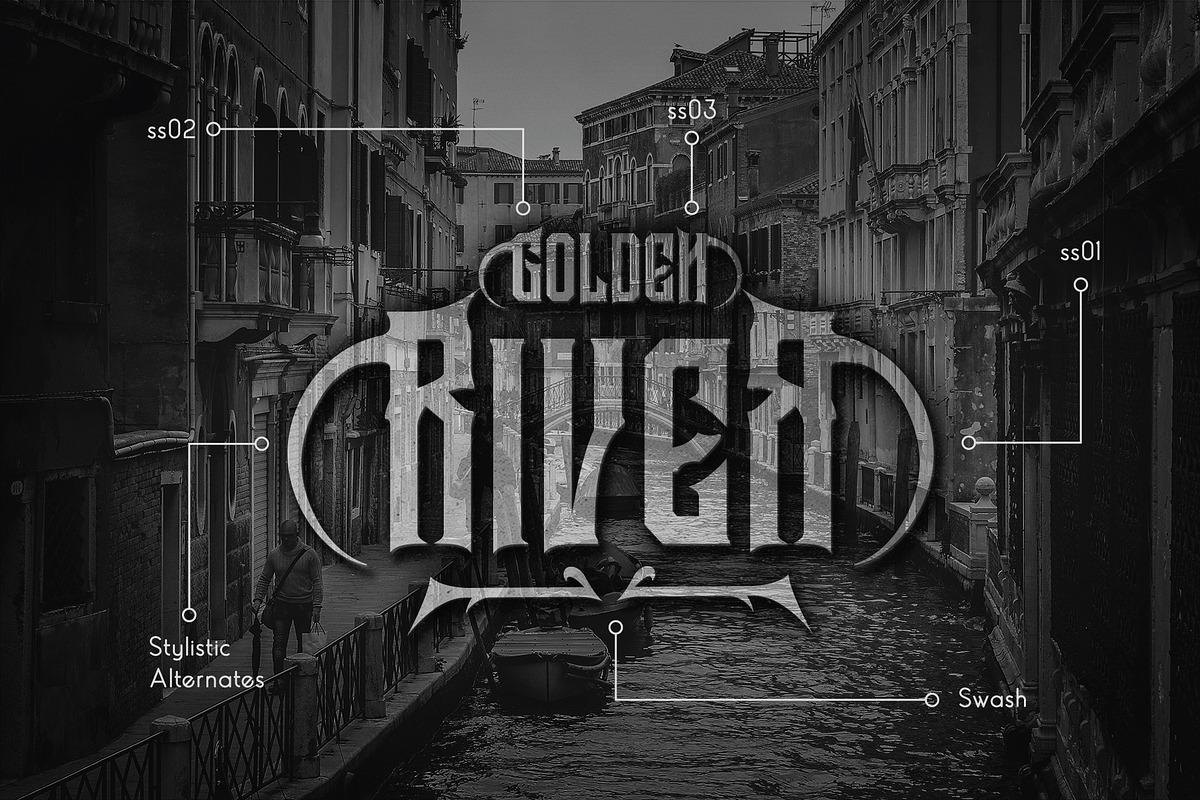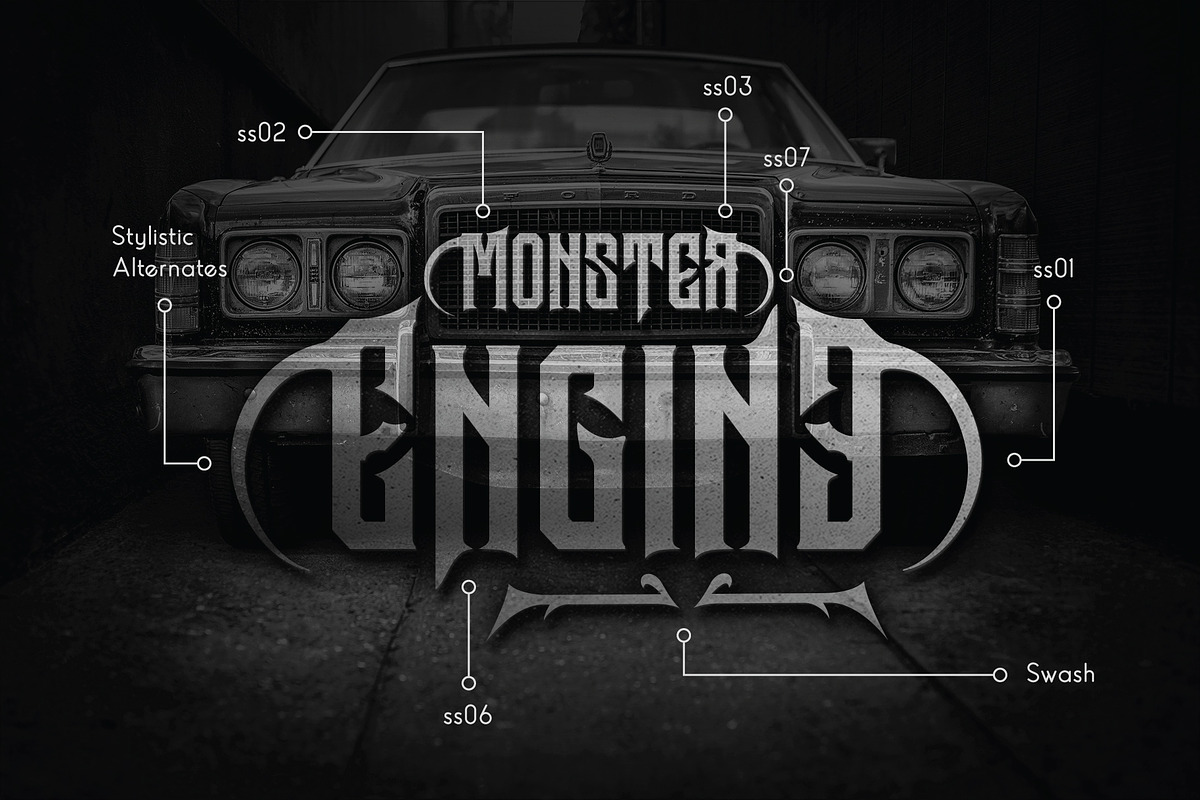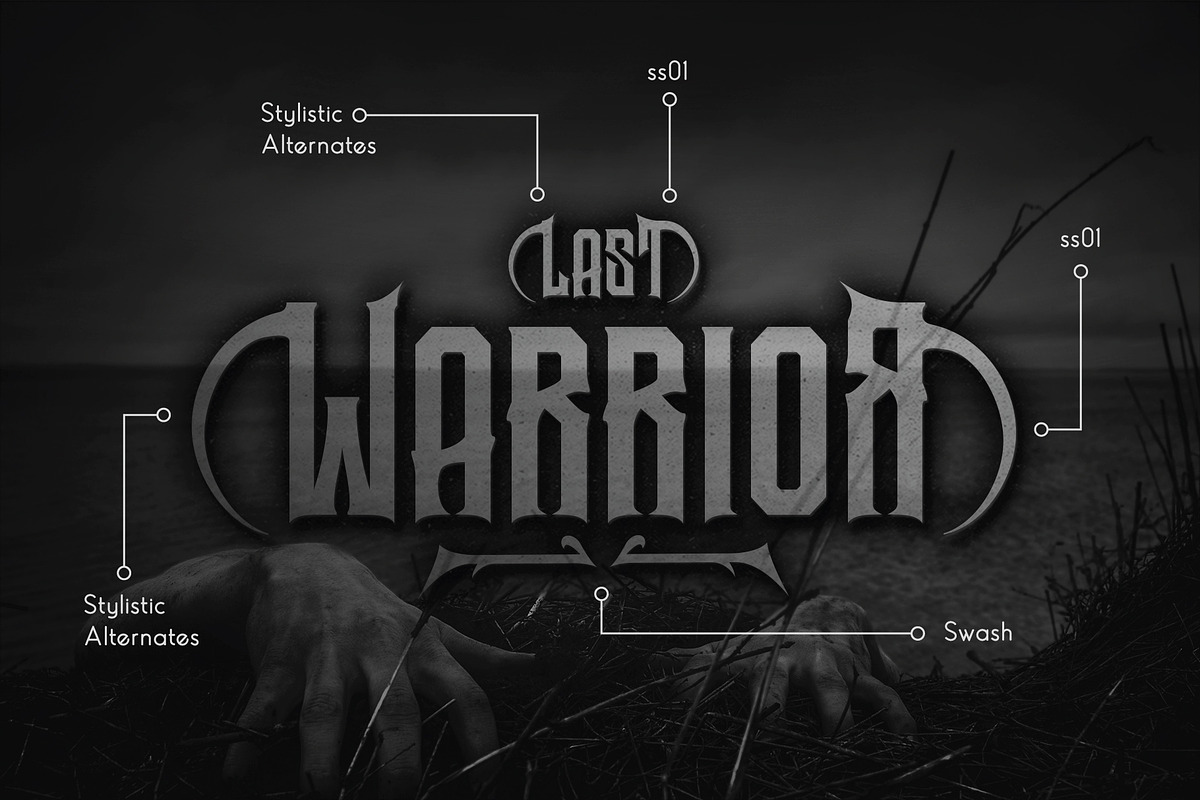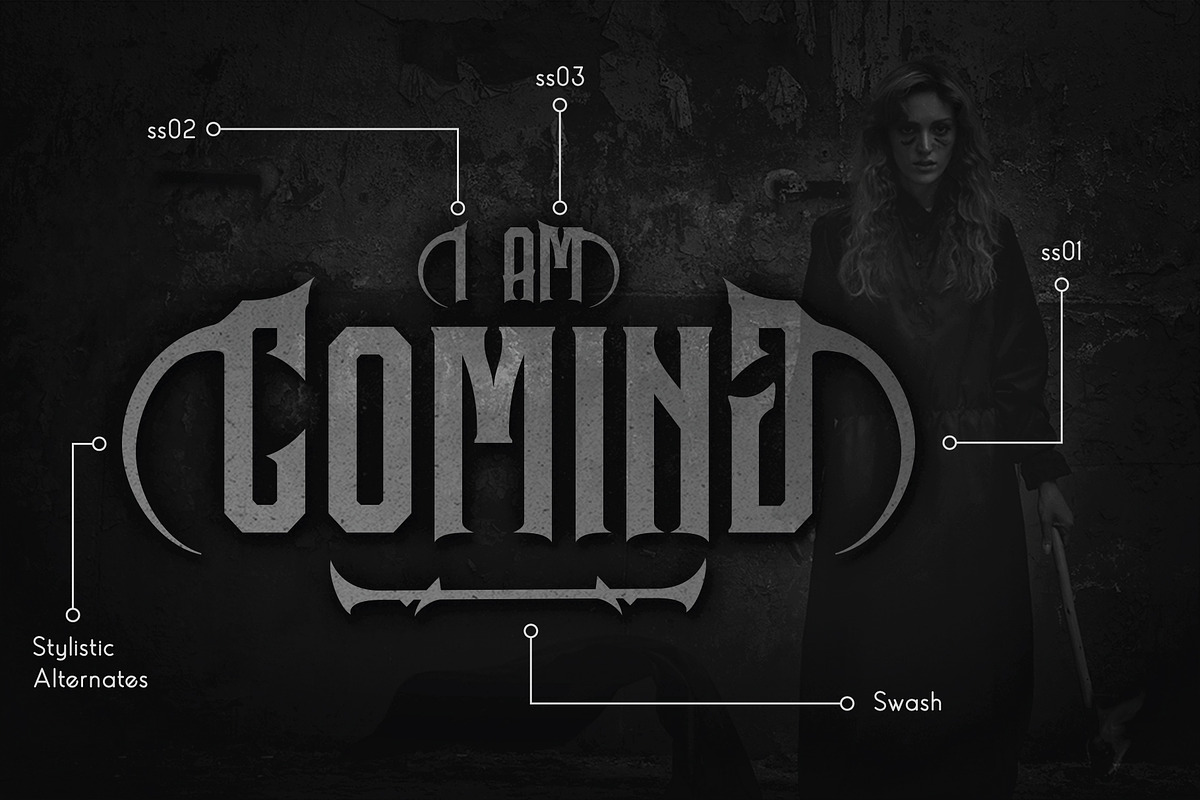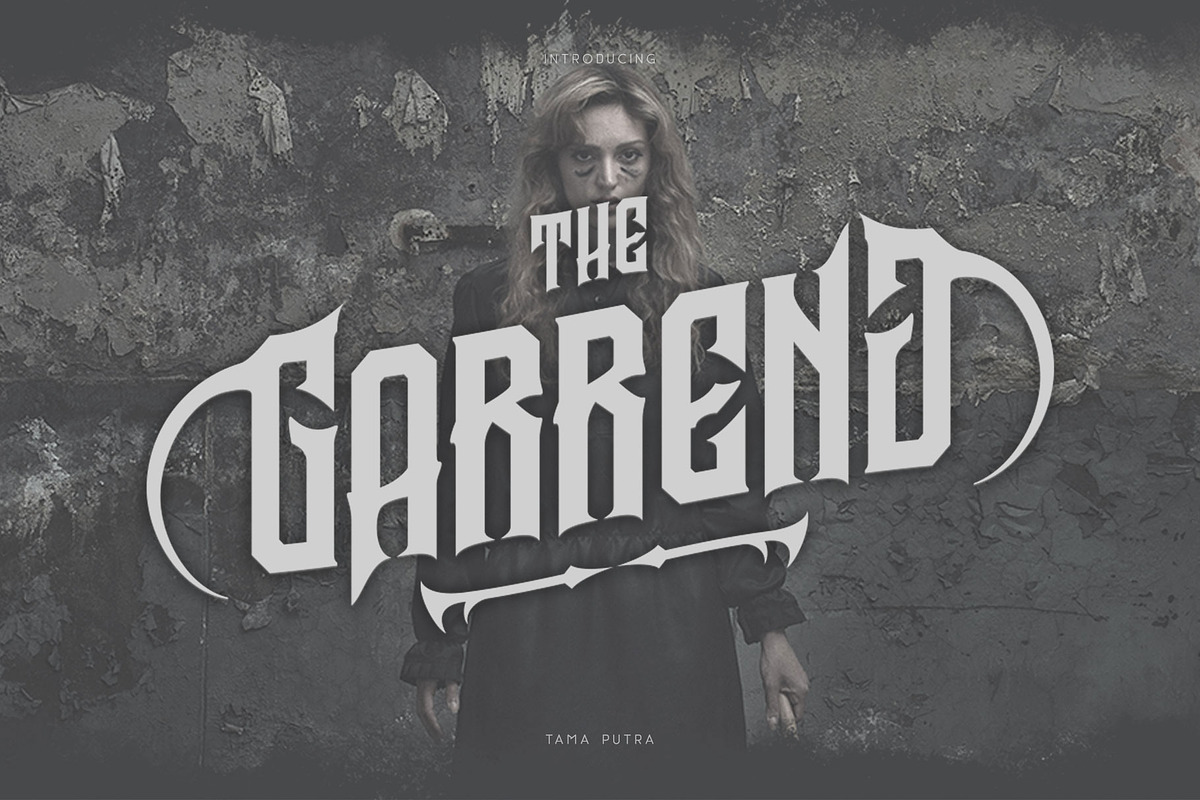
Garreng Font
Garreng is a typeface inspired from gothic style.
It includes a full set of uppercase and lowercase letters as well as multi-lingual and currency support, numerals, punctuation, alternates, ligatures and some extra glyphs.
Character Set A-Z (Uppercase & Lowercase)
Accents (Multilingual characters)
ss01, ss02, ss03, ss04, ss05, ss06, ss07, ss08, ss09
Garreng typeface is suitable font for creating beautiful things and many creative work.